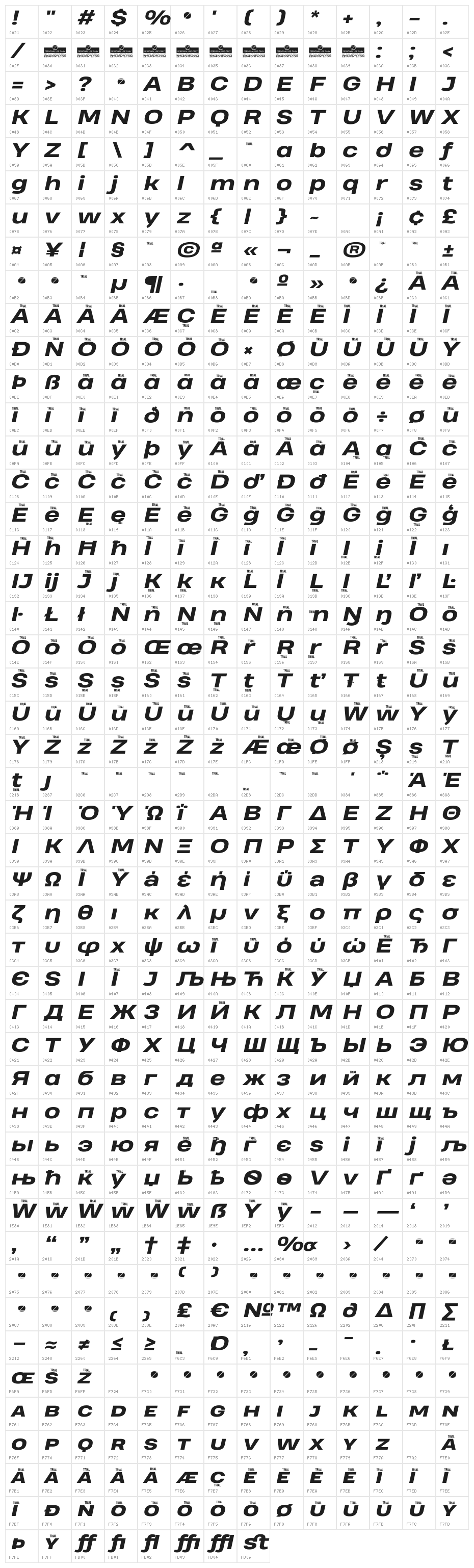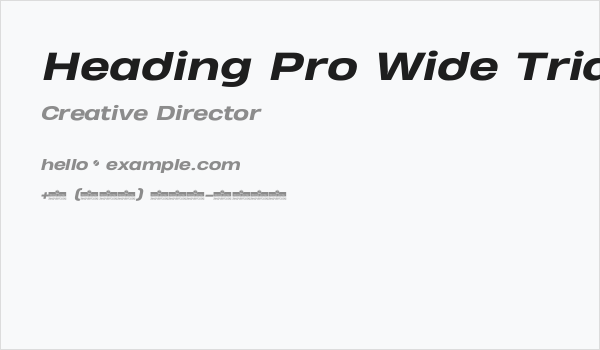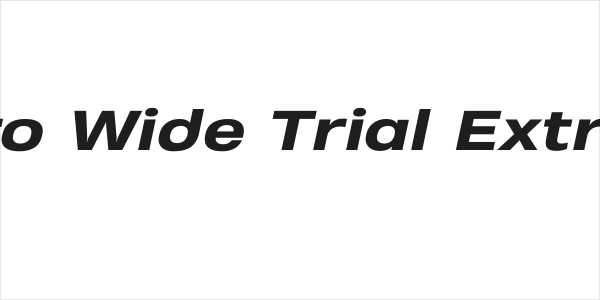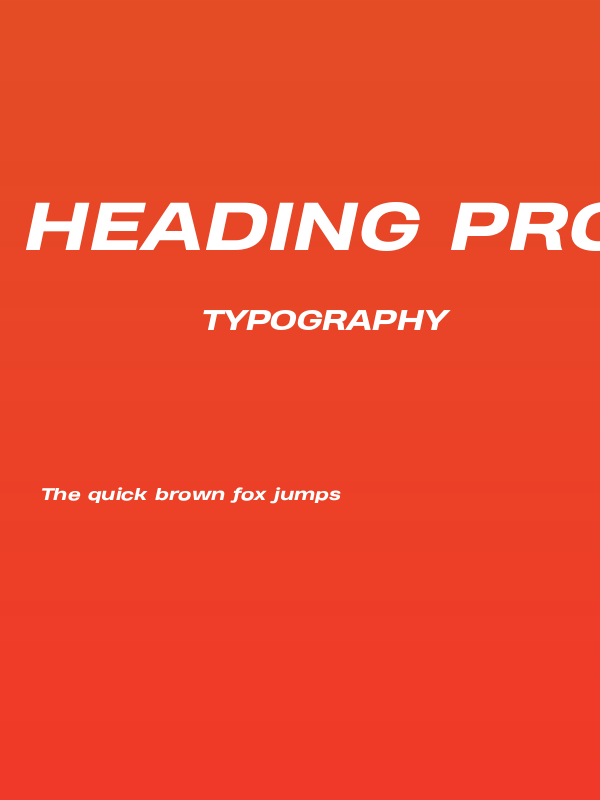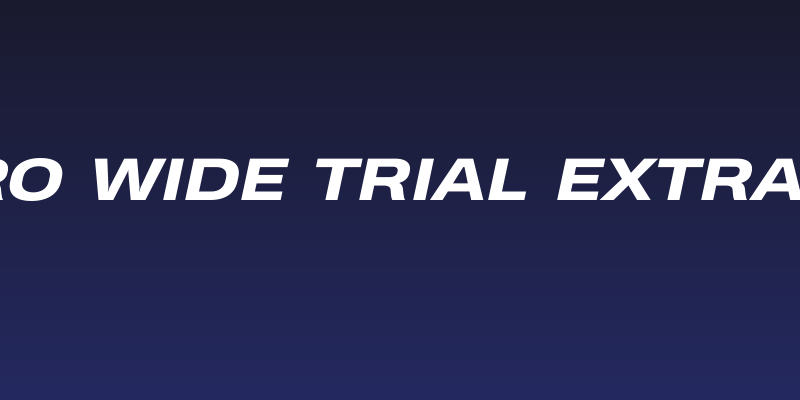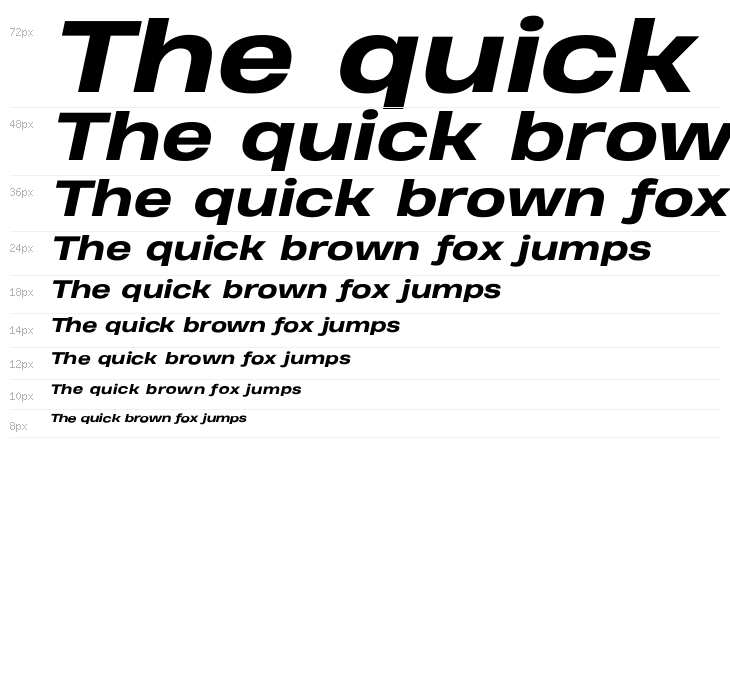
Heading Pro Wide Trial ExtraBold Italic Font
This font exhibits a bold and assertive style with a wide stance and italicized form, making it highly suitable for impactful headlines and attention-grabbing text. The uppercase and lowercase letters maintain a consistent weight, contributing to a cohesive and powerful appearance. The characters are well-spaced, ensuring readability even at smaller sizes. The font's modern aesthetic is enhanced by its clean lines and minimalistic design, making it versatile for various design projects. The special characters are designed to match the boldness and style of the alphabet, providing a complete and unified look.
| Proposed Projects | Ideal for branding, advertising, posters, and any project requiring strong visual impact. |